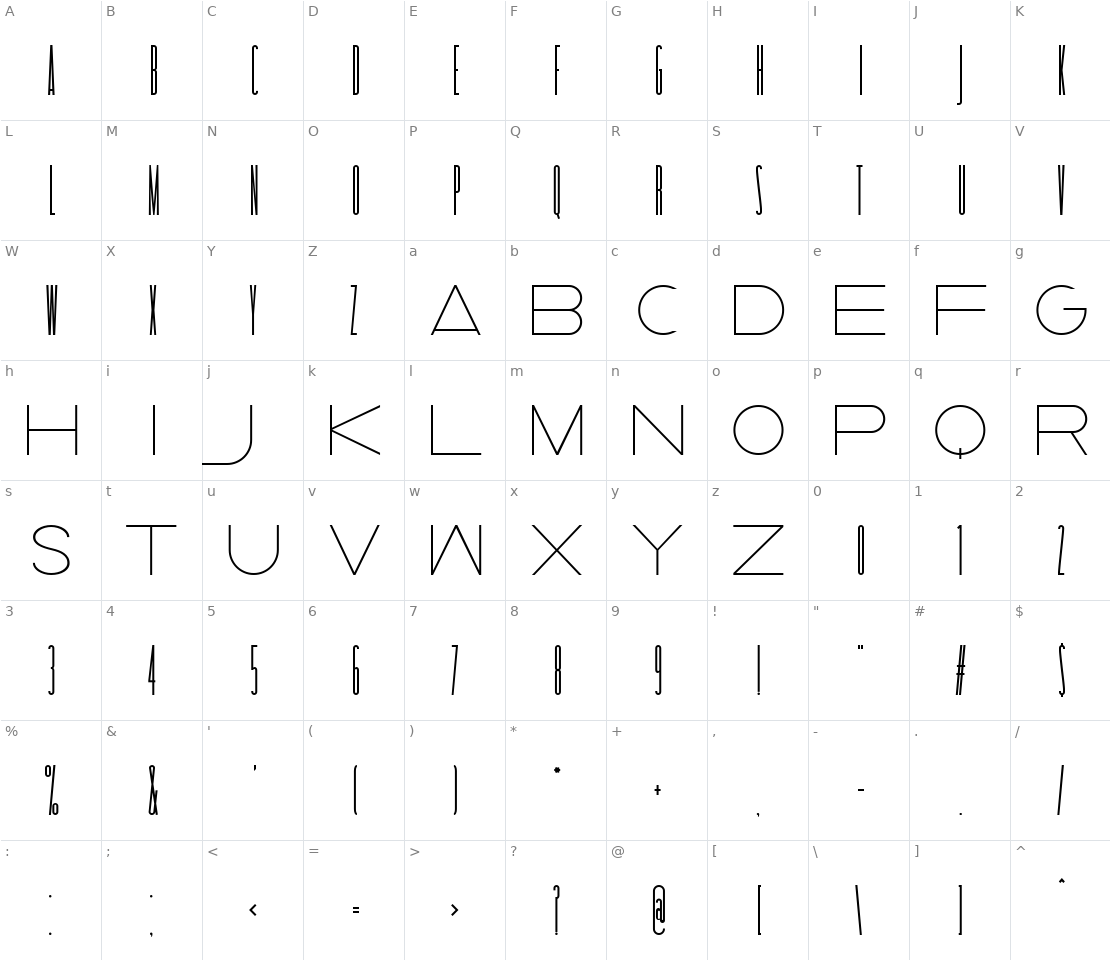
Taller Evolution
Taller Evolution is an ultralight geometric display face from Zetafonts with exceptionally tall proportions and hairline-thin strokes that give it an airy, almost weightless presence. The minimalist construction feels futuristic and refined, relying entirely on clean geometry and vertical emphasis rather than any ornamental detail. Best reserved for large headlines and branding where elegance and breathing room are the priority, since those delicate strokes will vanish at smaller sizes.